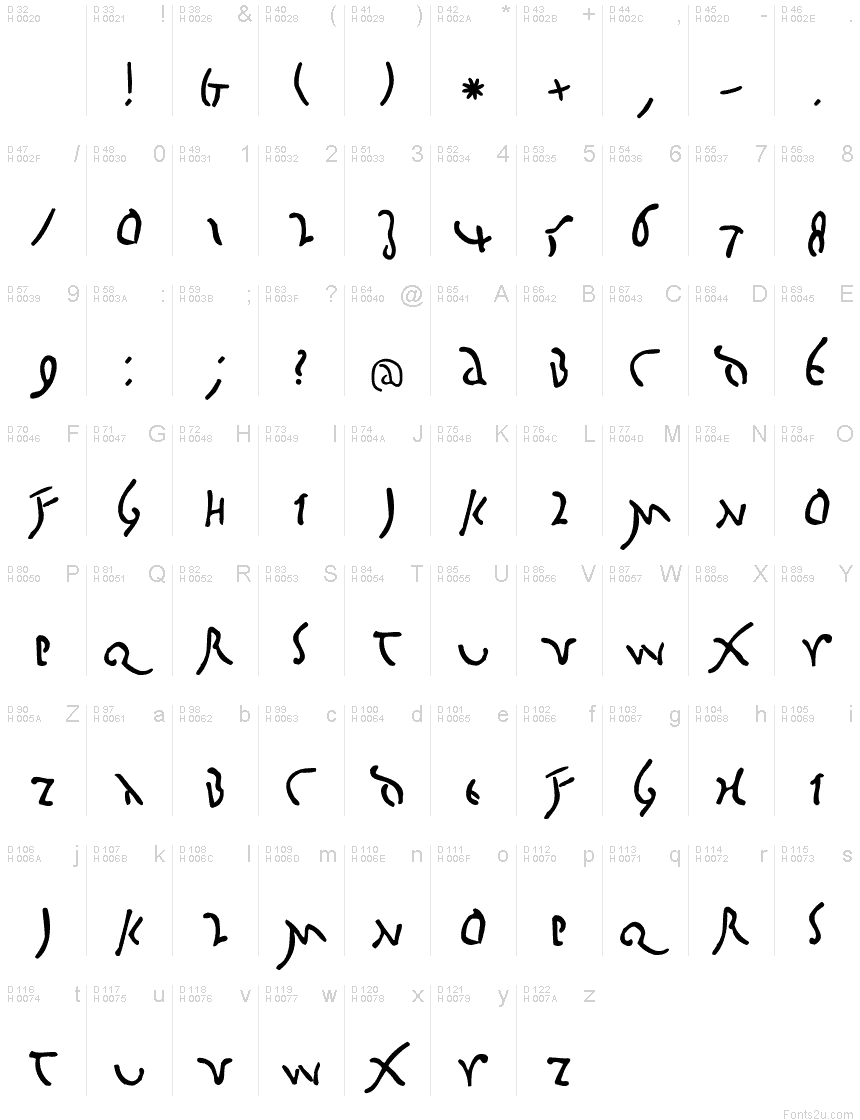
BigCaesar-Medium
Big Caesar font by m klein fonteria is a free rough handwritten font in the BigCaesar family. Its restless strokes feel scratched into plaster with a blunt brush—part ancient inscription, part late-night marker scrawl—so even a short word lands with raw, uneven energy and a memorable, human edge.
Using Big Caesar works beautifully for poster titles, museum event graphics, album covers, game logos, zine headers, themed party invites, and book jackets with a mythic or gritty mood. This free font shines best at larger sizes; pair it with a plain sans for body text so its jagged rhythm and loose spacing can do the talking.